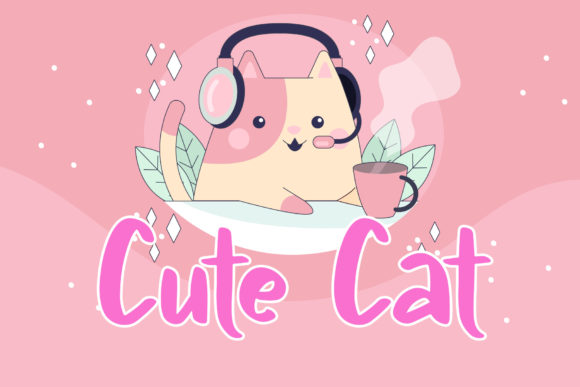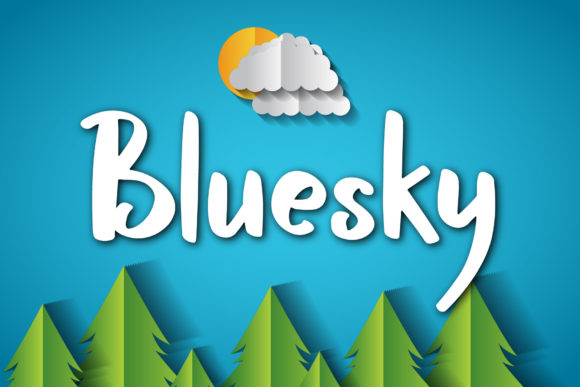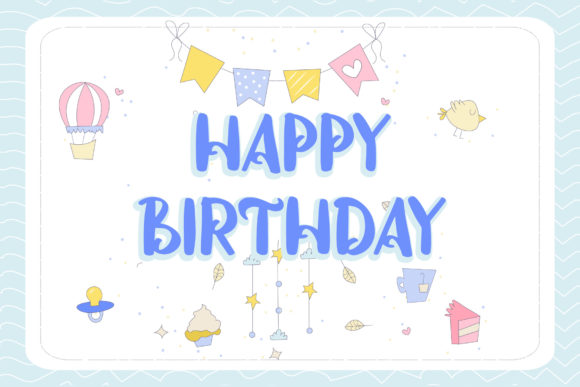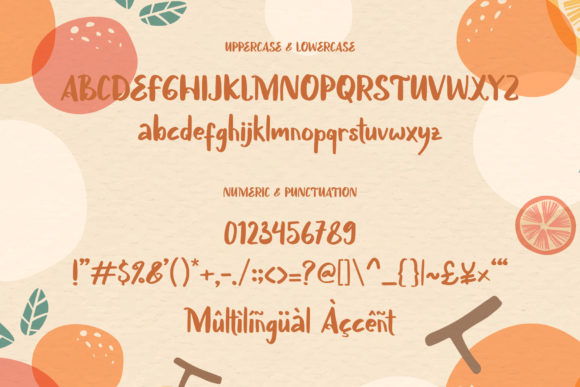
Introduction to Salt Bread Font
Salt Bread is a chunky,round lettered handwritten font.
Its flowing and unique style makes this font incredibly adept, fitting a wide variety of designs .